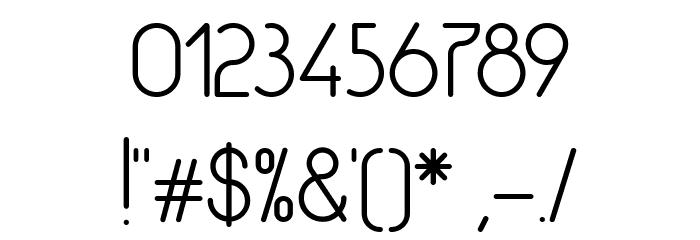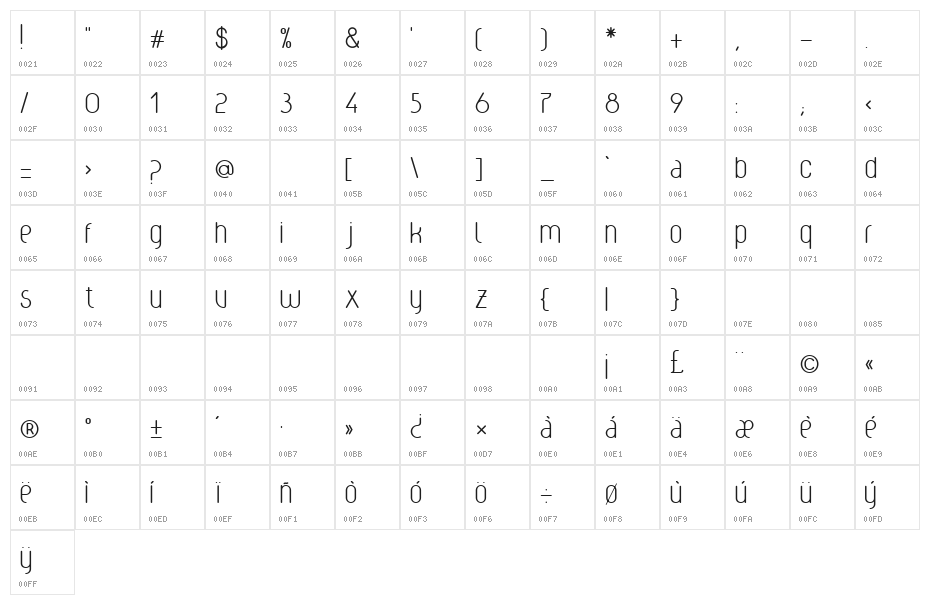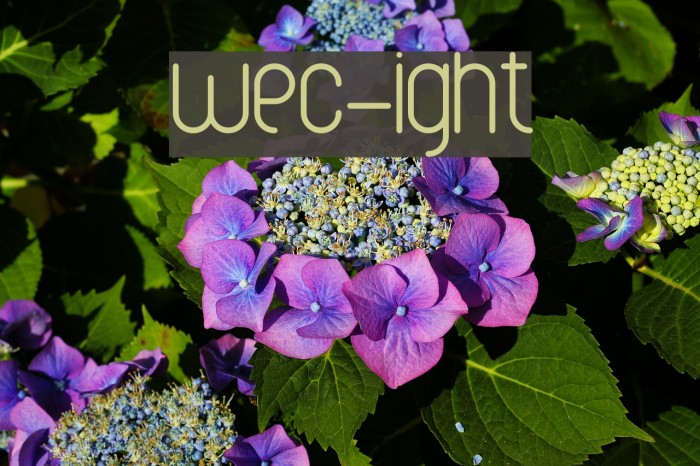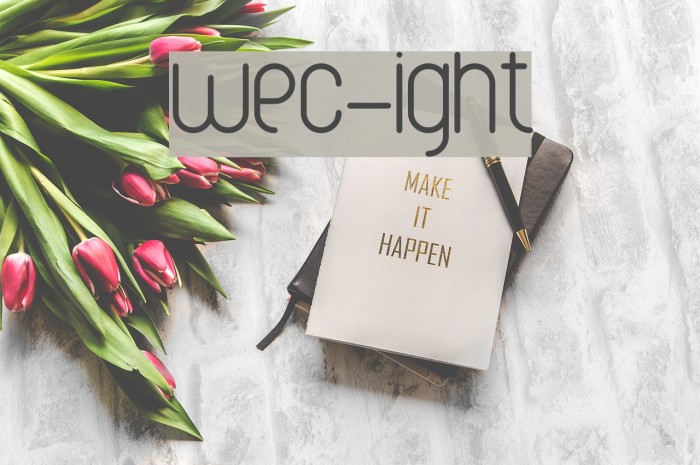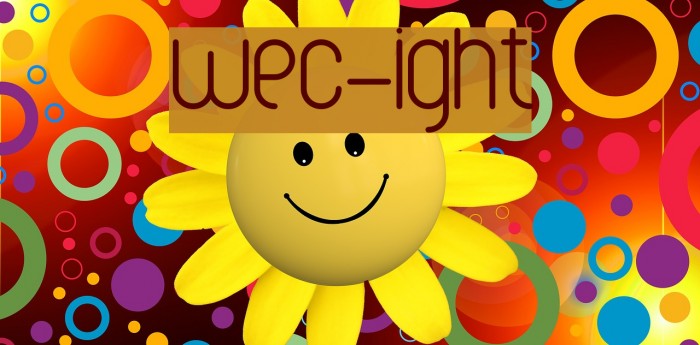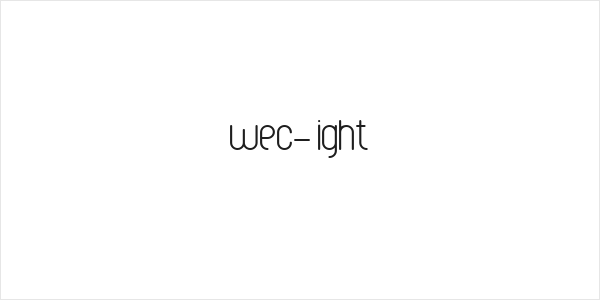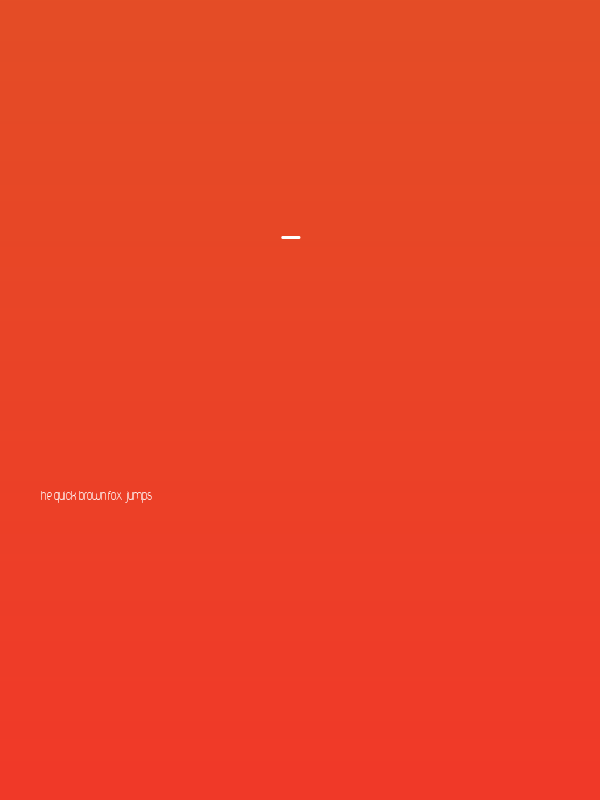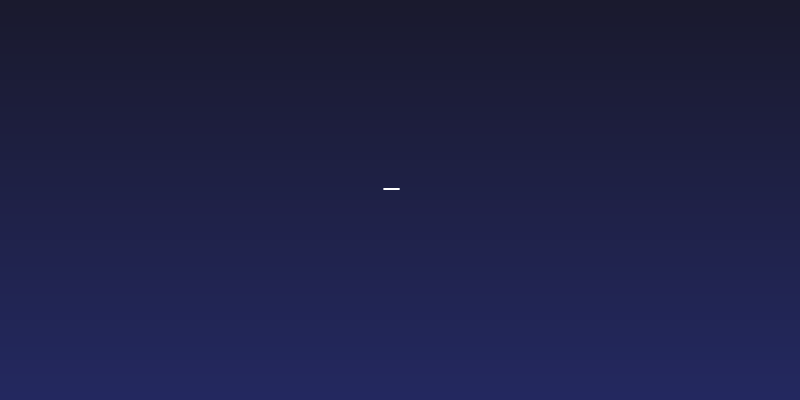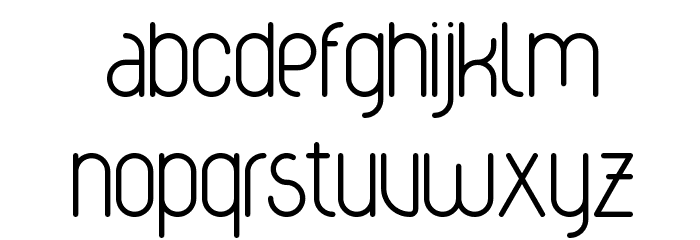
wec-Light Font
wec-Light Description
This font features a clean and modern design with rounded edges and a uniform stroke width, giving it a friendly and approachable appearance. The characters are evenly spaced, contributing to its readability. The lowercase letters have a consistent height, while the uppercase letters maintain a balanced proportion. The numerals are clear and distinct, making them easily legible. Special characters are designed with the same rounded aesthetic, ensuring a cohesive look across all elements. This font's simplicity and clarity make it versatile for various design applications.